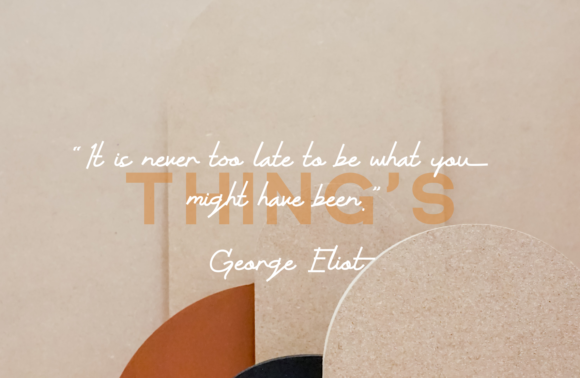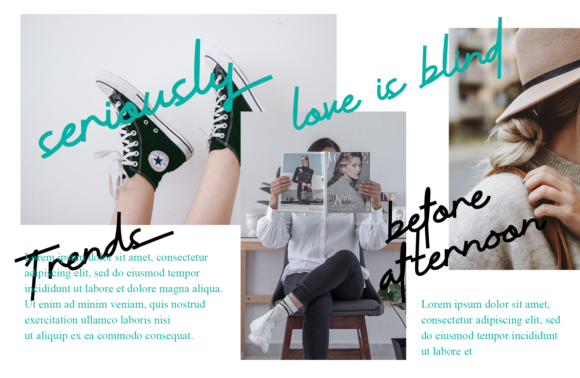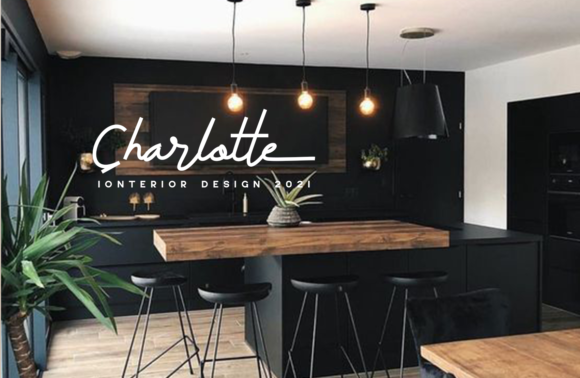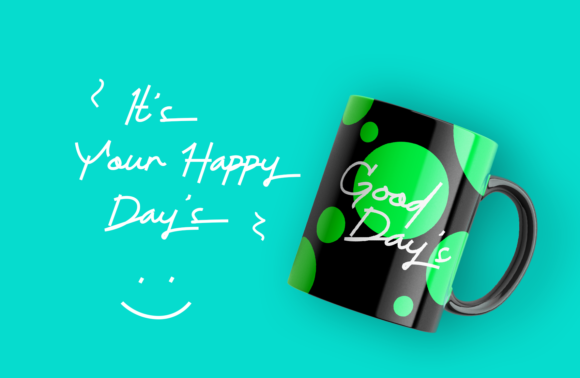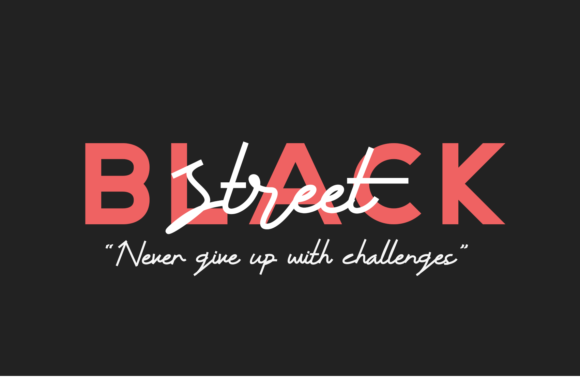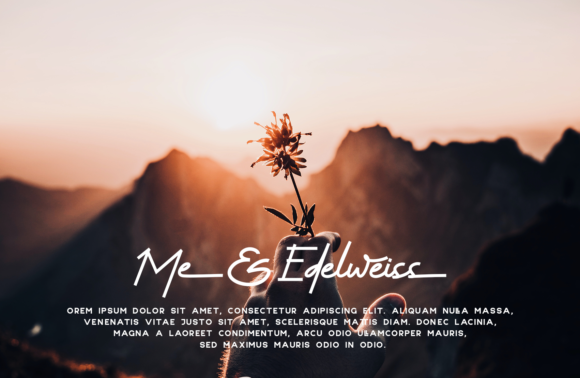
Discover the Timeless Charm of the Hello Alexandria Font
As designers, we’ve all been there – staring at a blank canvas, searching for the perfect font to bring our vision to life. And then, it happens. A spark of inspiration strikes, and we stumble upon that one special font that sets our creative juices flowing. For many, that moment came with the Hello Alexandria Font, a beautiful, handwritten script that exudes elegance and sophistication.
This stunning font is more than just a pretty face – it’s a versatile tool designed to elevate any design project, from wedding invitations and thank-you cards to logos and greeting cards. With its unique, cursive flair, the Hello Alexandria Font adds a personal touch to any creation, making it a valuable asset for designers seeking to infuse their work with a touch of personality.
Hello Alexandria Font Key Features
- Font Family: Hello Alexandria
- Character Count: 1000+ glyphs, including Latin, Greek, and Cyrillic scripts
- Unique Characteristics: Hand-drawn, elegant, and sophisticated design with a touch of ancient Greek and Roman architecture inspiration
Hello Alexandria Font Review
Hello Alexandria Font is a beautiful, elegant script font that’s perfect for adding a touch of sophistication to your designs. ✨ The font’s flowing lines and subtle flourishes make it ideal for titles, headings, and other prominent text elements.
The font’s versatility is one of its greatest strengths. ✨ It works well in a variety of contexts, from modern and minimalist to traditional and vintage. The font’s high contrast and refined letterforms make it easy to read, even at small sizes.
However, there are a few limitations to consider. ⚠️ The font’s script style can make it difficult to use in situations where readability is a top priority. Additionally, the font’s lack of bold and italic styles can limit its use in certain design applications.
Overall, I’d recommend Hello Alexandria Font for designers looking to add a touch of elegance to their work. While it may have some limitations, the font’s beauty and versatility make it a valuable addition to any font collection.
- Beautiful, elegant script font
- Perfect for titles, headings, and other prominent text elements
- High contrast and refined letterforms
- Easy to read, even at small sizes
- Versatile and works well in a variety of contexts
Tips for Getting the Most Out of the Hello Alexandria Font
To get the most out of the Hello Alexandria Font, try the following:
- Use the font for headings and titles to create a visually appealing contrast.
- Pair the font with other serif fonts for a classic and elegant look.
The Hello Alexandria Font is ideal for:
- Book covers and titles. Alternatives to Hello Alexandria Font for Designers
Great Vibes Font is a modern, elegant script font that is perfect for adding a touch of sophistication to your designs. It’s great for use in titles, headings, and logos where you want to convey a sense of luxury and style.
Comparison to Hello Alexandria Font: While Hello Alexandria Font has a more vintage feel, Great Vibes Font is more modern and sleek. Great Vibes Font is also more versatile and can be used in a wider range of designs.
Carolyna Pro Font is a beautiful, elegant serif font that is perfect for use in titles, headings, and body text. It’s great for use in designs where you want to convey a sense of sophistication and elegance.
Comparison to Hello Alexandria Font: Carolyna Pro Font has a more classic feel than Hello Alexandria Font, which is more vintage-inspired. Carolyna Pro Font is also more legible and easier to read, making it a great choice for body text.